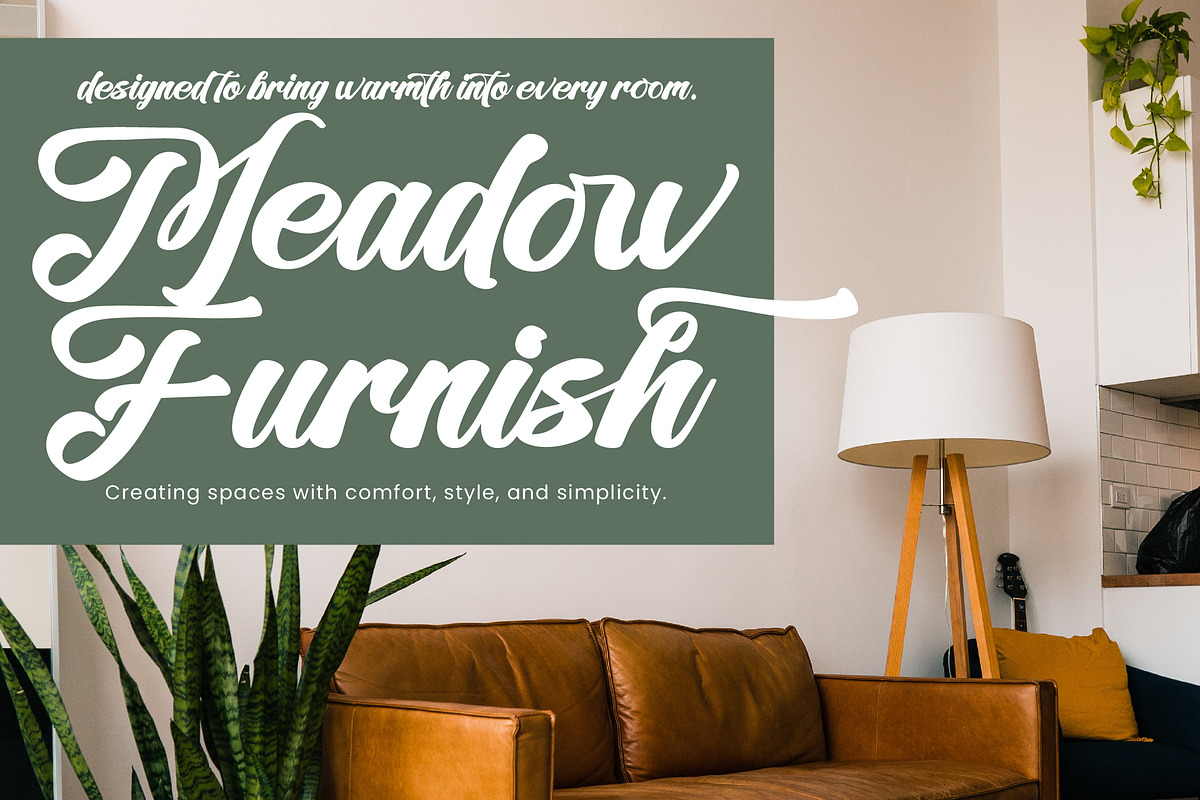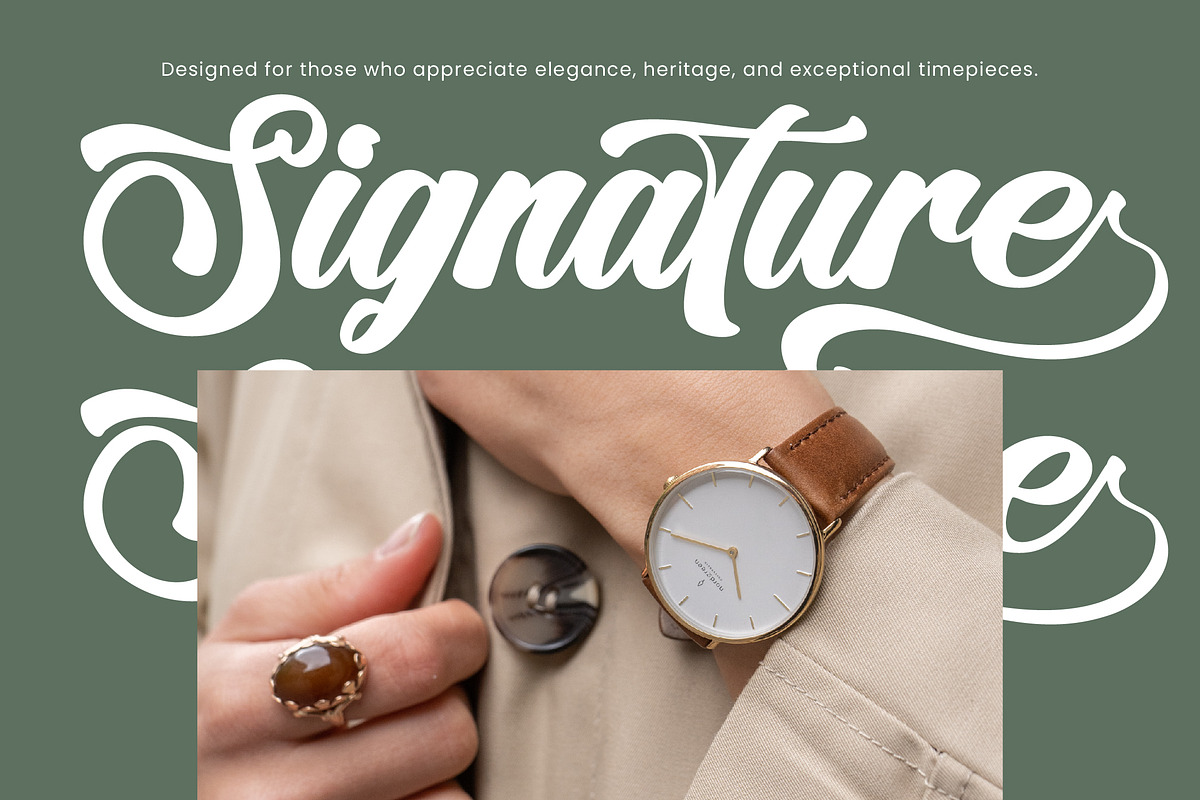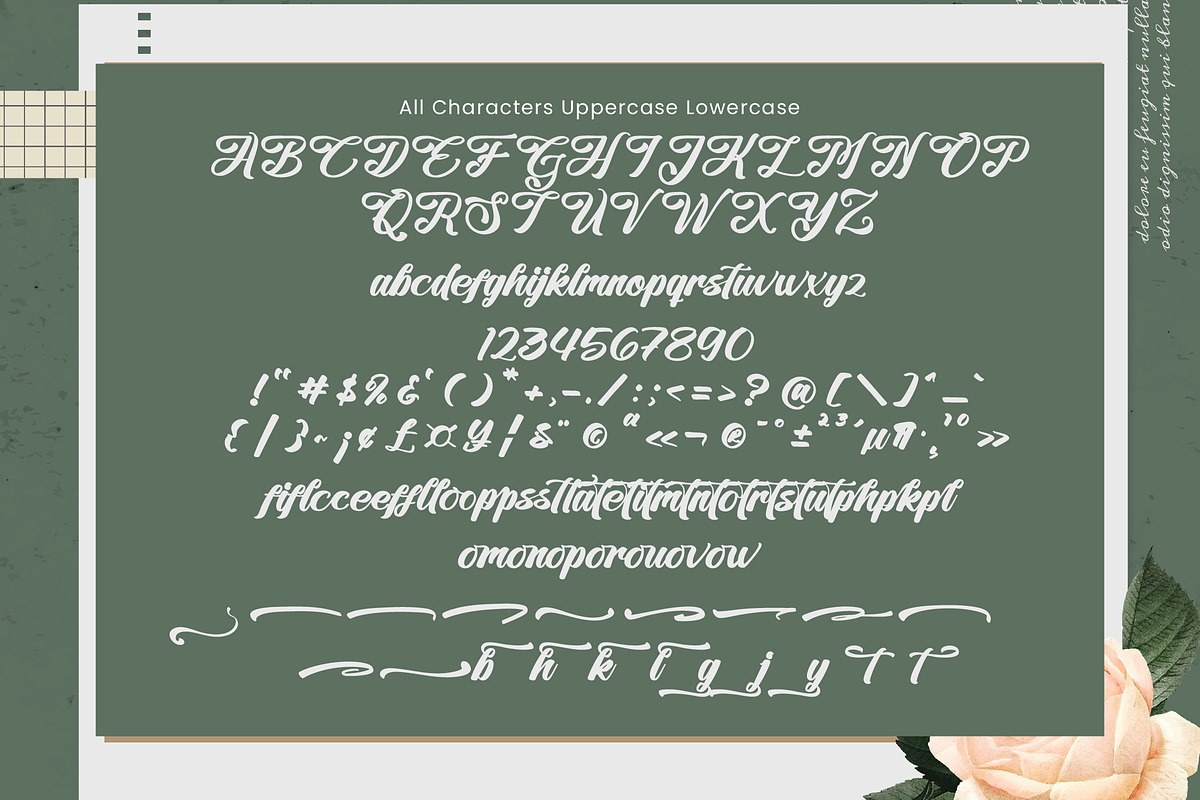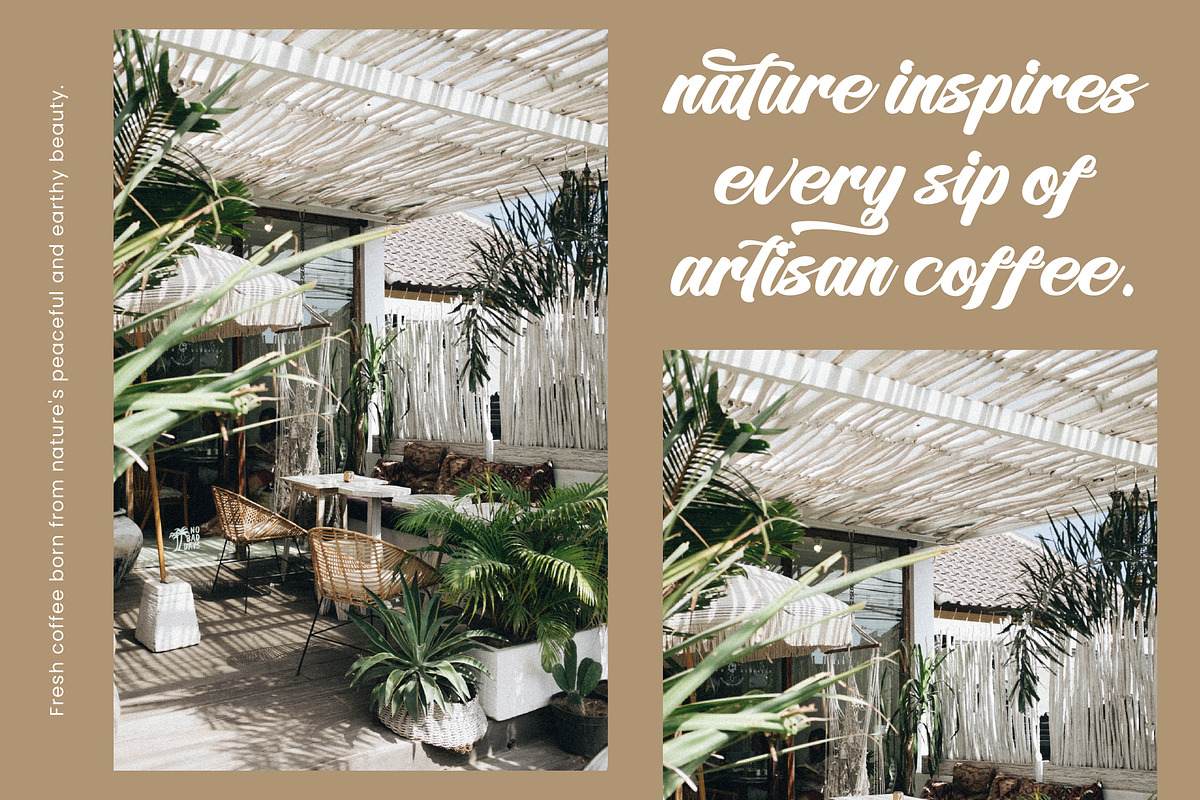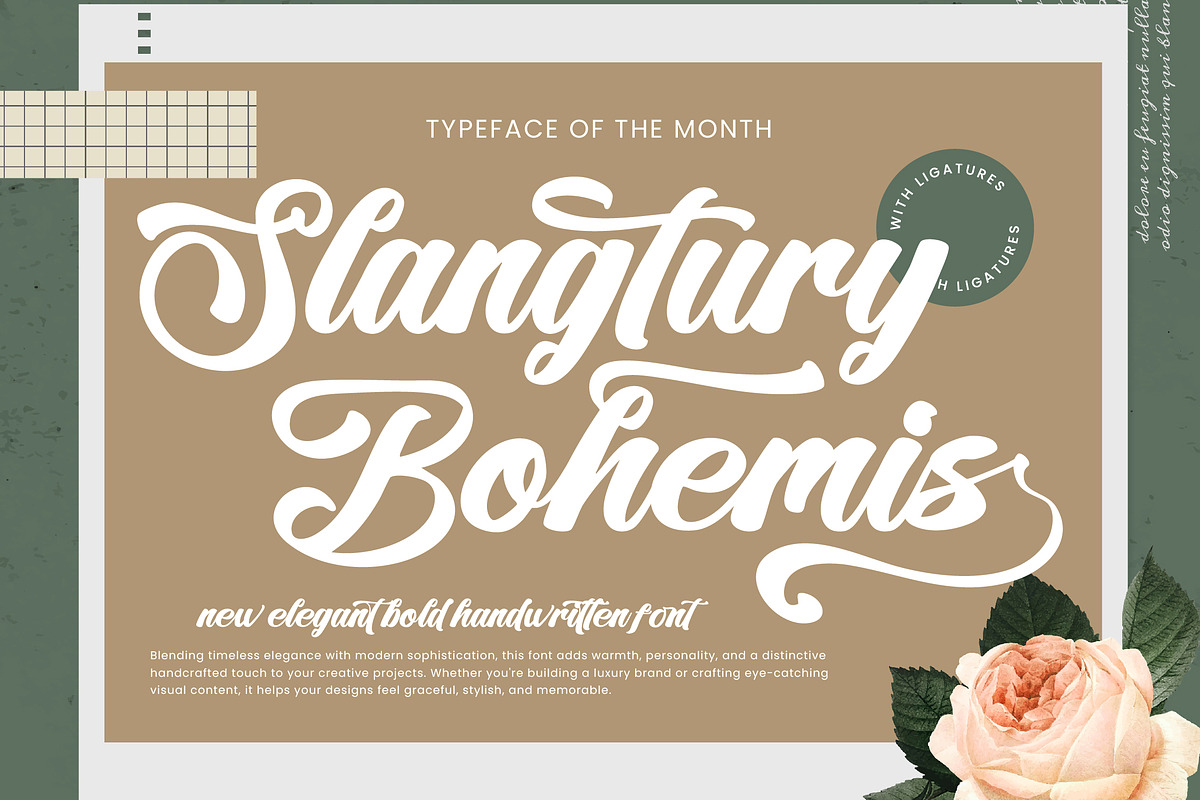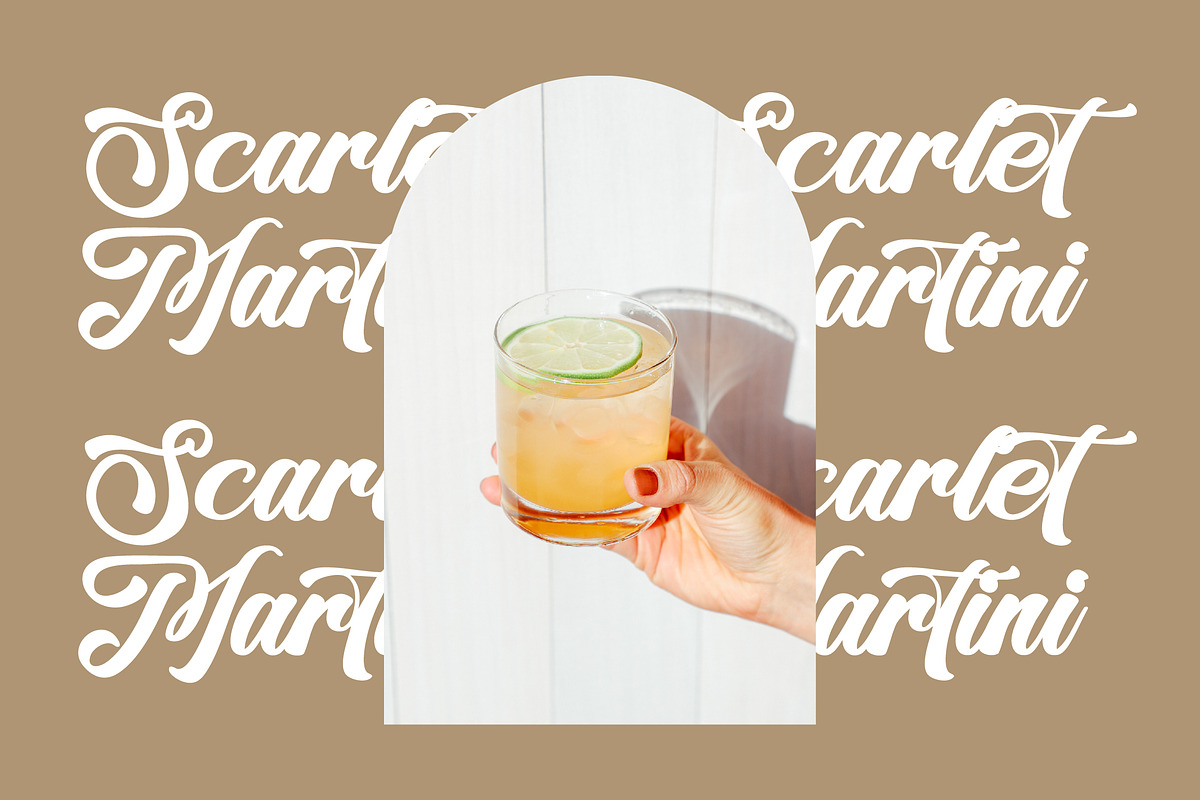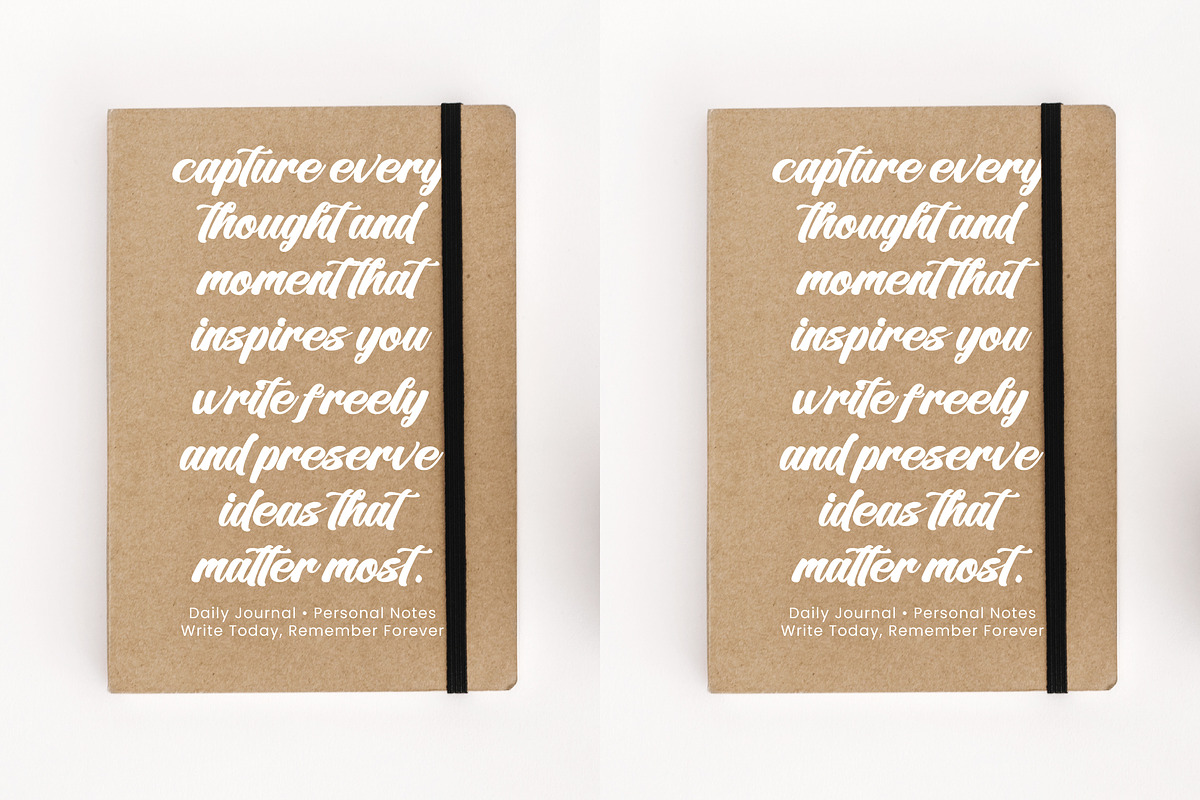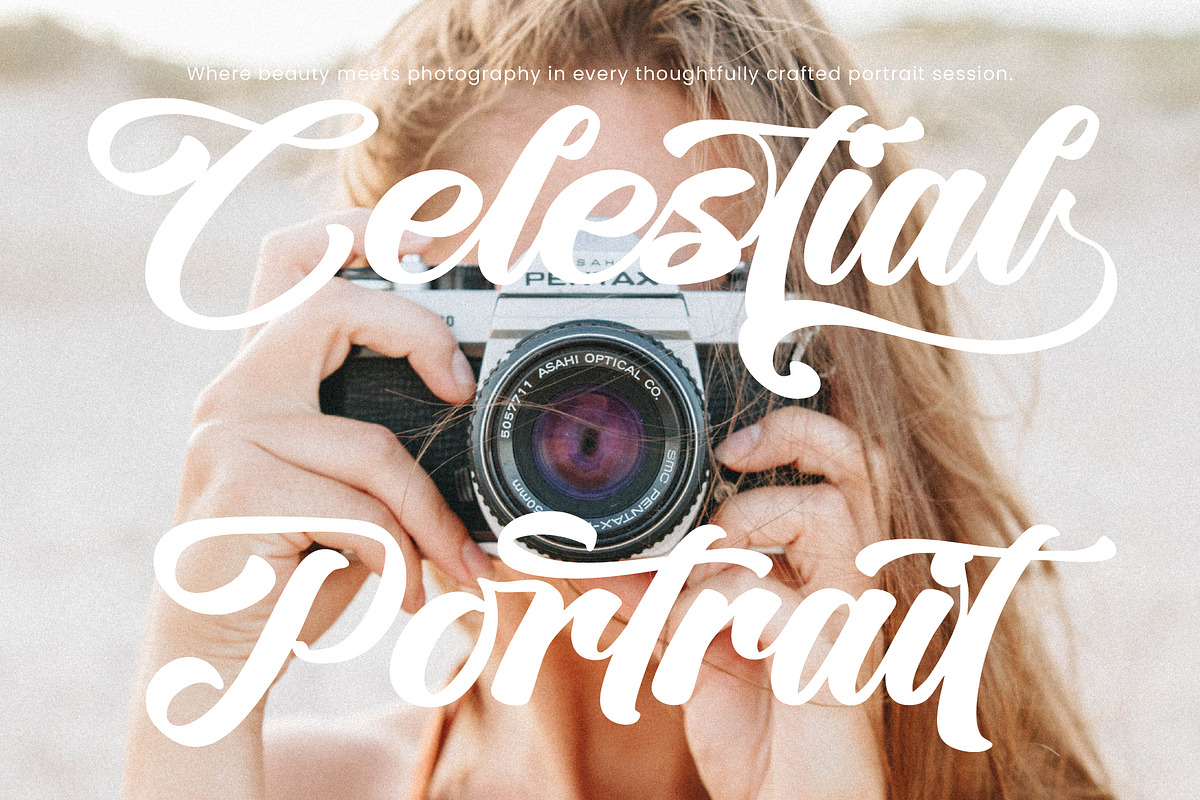
Slangtury Bohemis Elegant Bold
Slangtury Bohemis is an elegant bold handwritten font that combines classic script beauty with a modern bohemian touch. Featuring smooth flowing strokes, stylish swashes, and beautiful ligatures, this typeface is designed to bring sophistication and personality to every project.
Its bold character ensures excellent readability while maintaining a handcrafted appearance, making it perfect for branding, packaging, social media, wedding designs, logos, product labels, invitations, and editorial layouts. Slangtury Bohemis delivers a luxurious and memorable look that helps your designs stand out with confidence and charm.
Features: • Uppercase & Lowercase Characters • Numbers & Punctuation • Stylistic Ligatures • Elegant Swashes • Multilingual Support • Easy to Use
Perfect For: • Logo Design • Luxury Branding • Wedding Invitations • Fashion Projects • Packaging Design • Social Media Graphics • Beauty & Lifestyle Brands • Quotes & Headlines